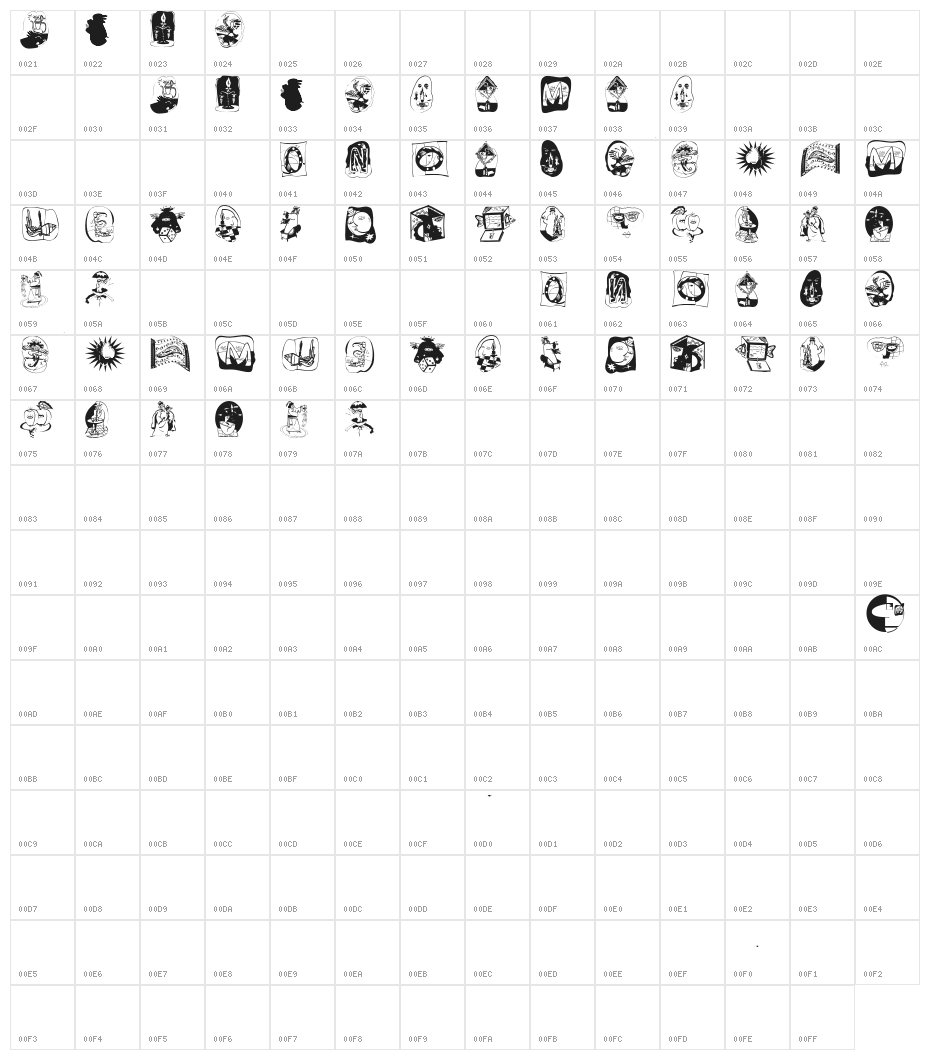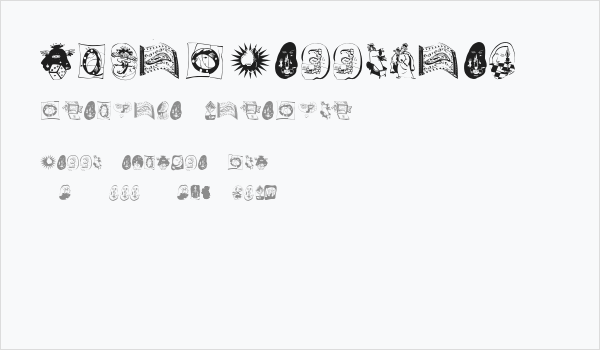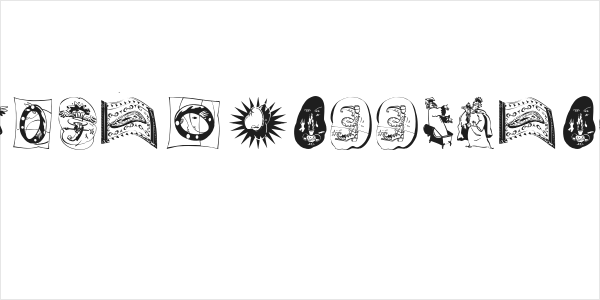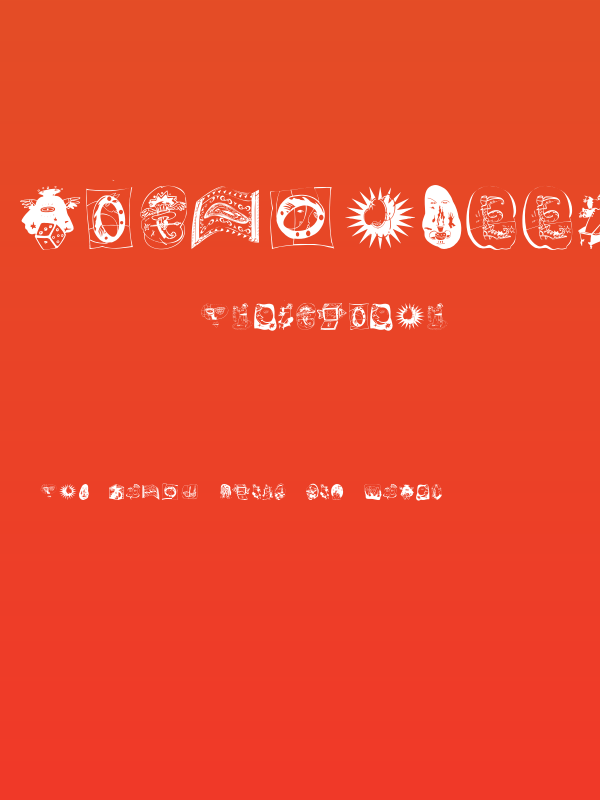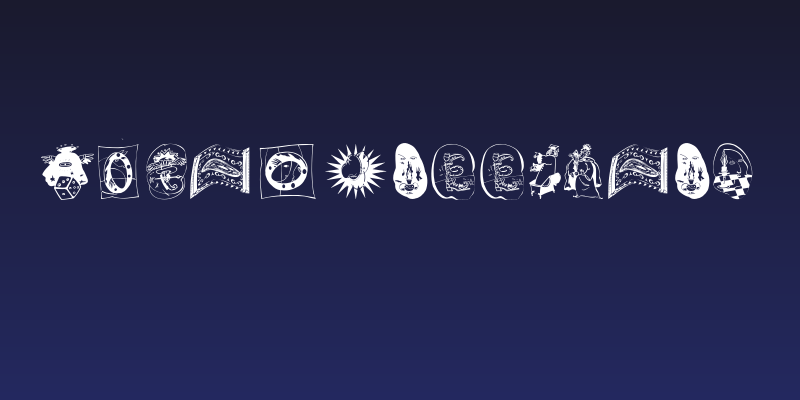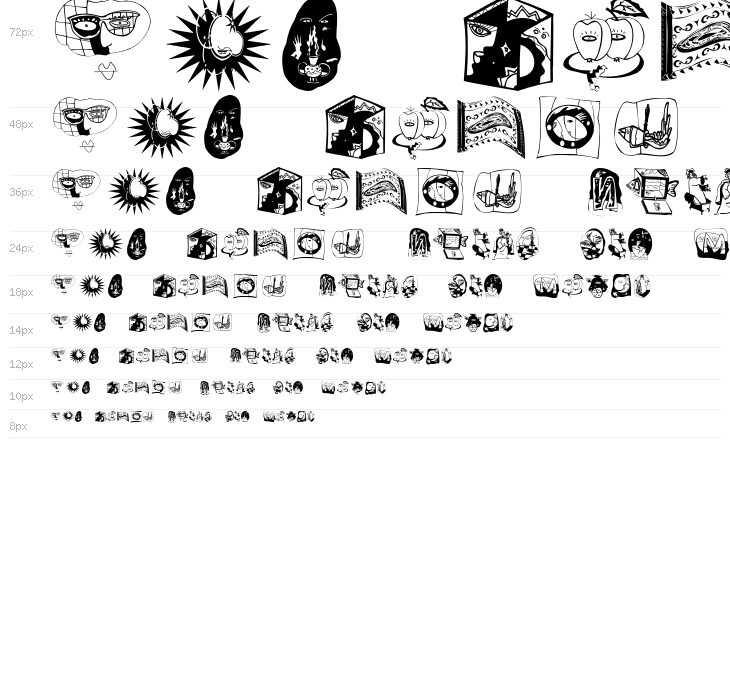
MagicHelloWien Font
MagicHelloWien Description
This font is a whimsical and artistic display typeface, featuring each character embedded within a unique illustration. The letters are surrounded by playful, surreal imagery, ranging from abstract shapes to cartoon-like figures. Each character is distinct, with a high level of detail and creativity, making it more of an art piece than a traditional font. The style is reminiscent of a hand-drawn, illustrative approach, with a focus on visual storytelling. The characters are enclosed in various shapes, adding to the eclectic and imaginative feel of the font.
| Use Case | Logos, Posters, Artistic Projects |
| Proposed Projects | Ideal for creative projects such as children's books, art posters, or any design requiring a playful and artistic touch. |